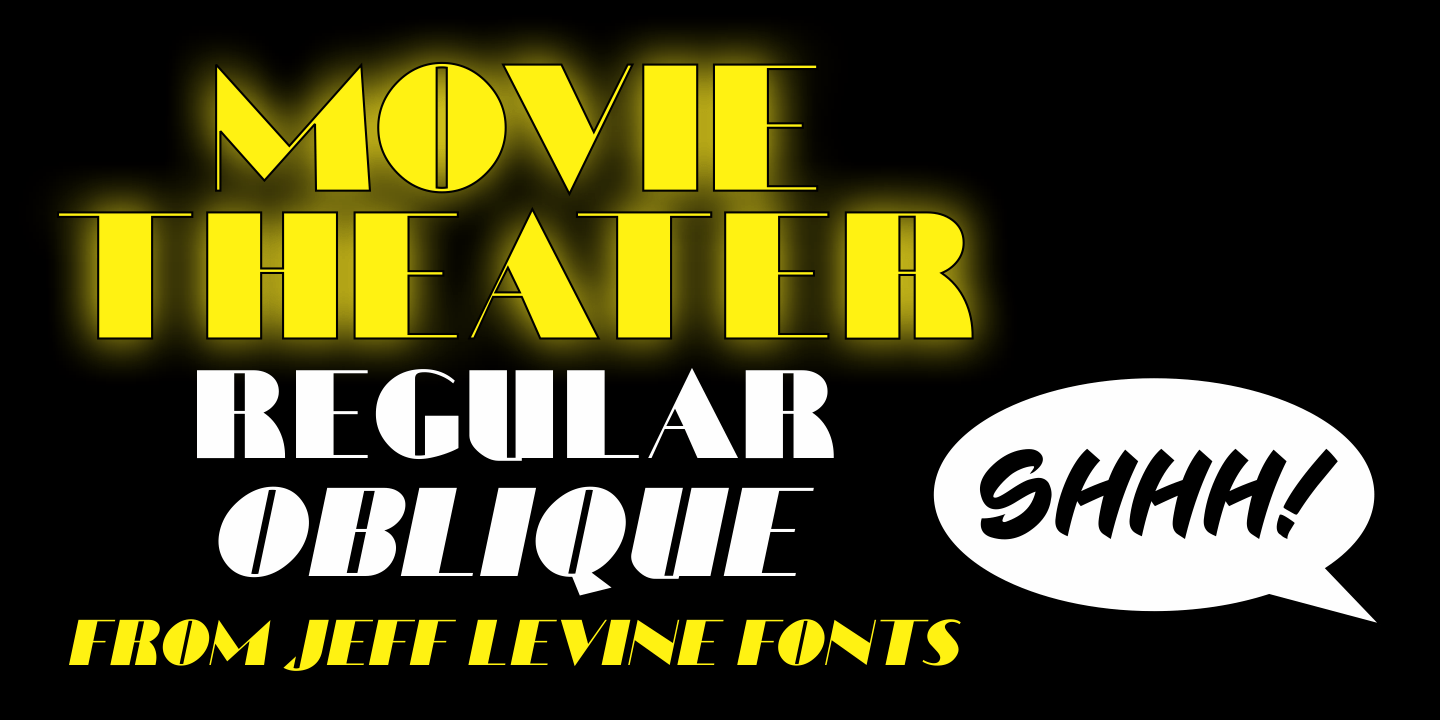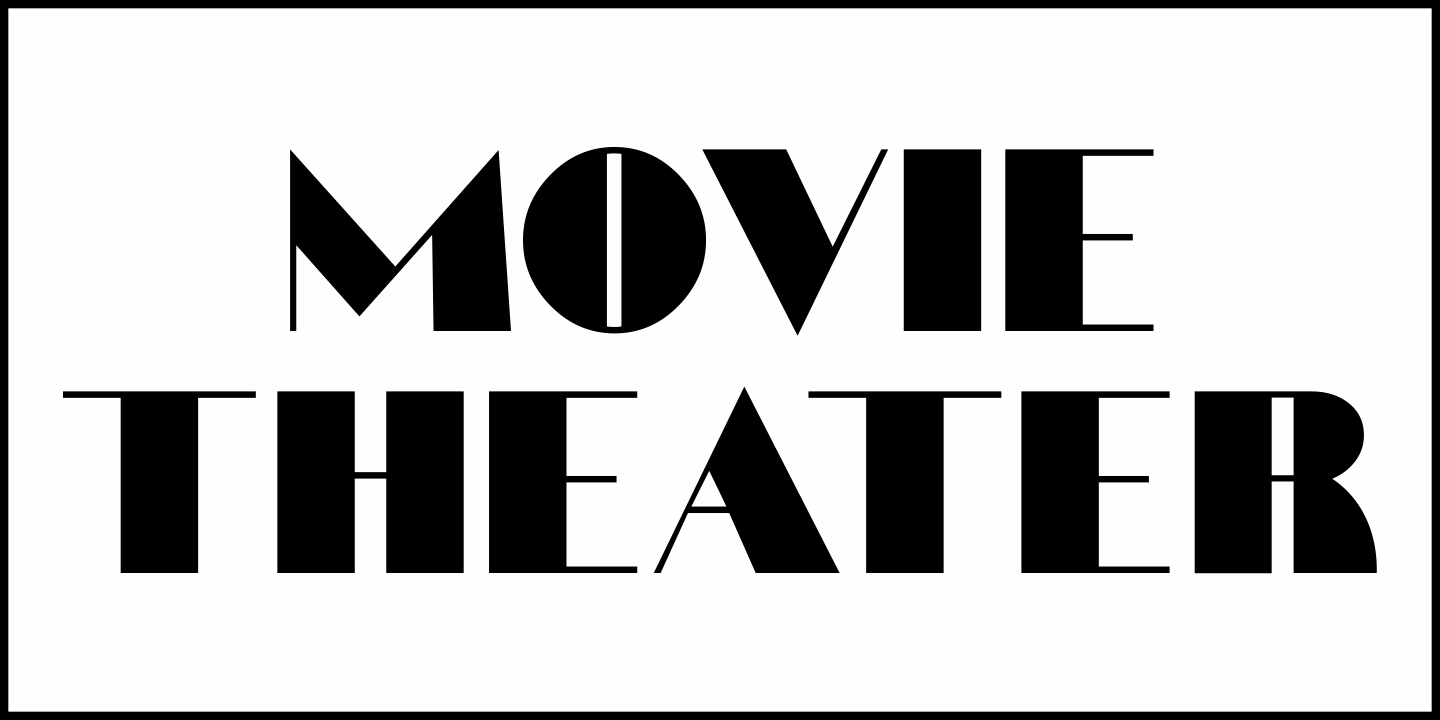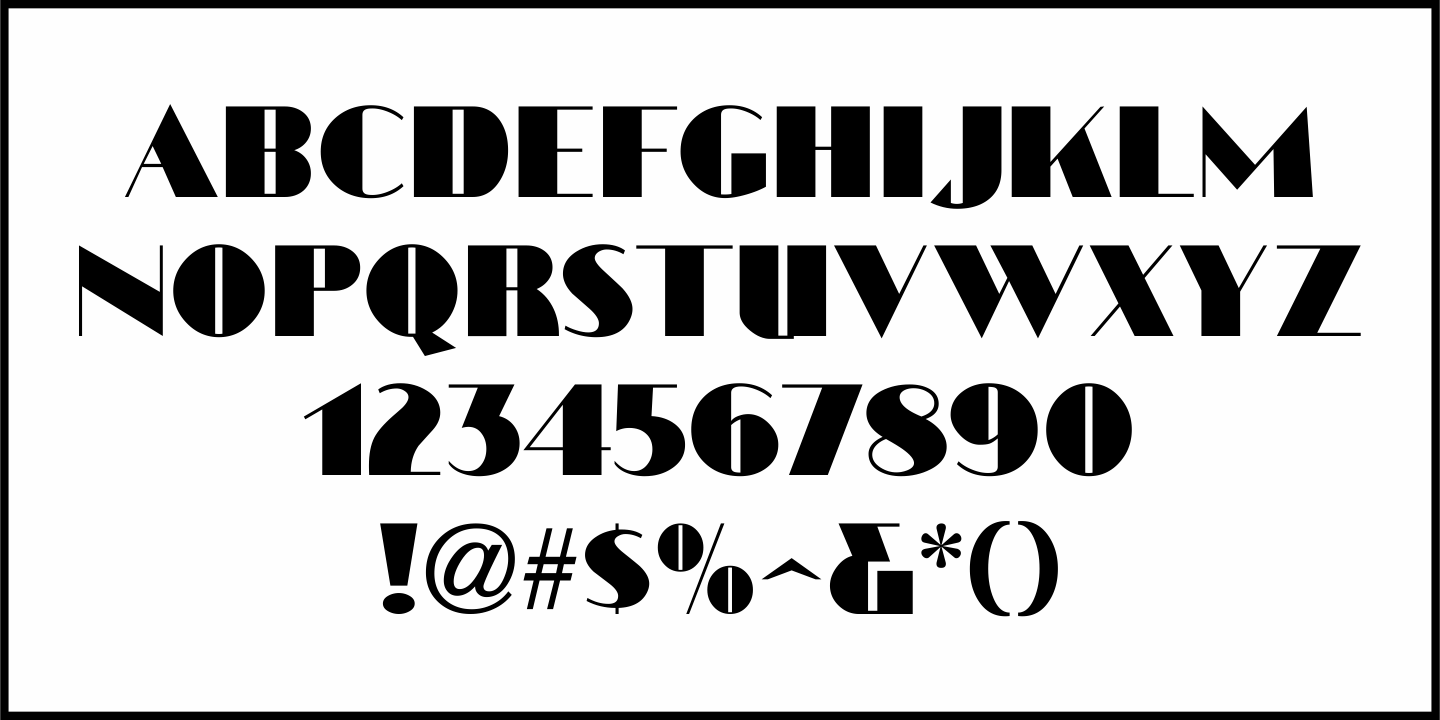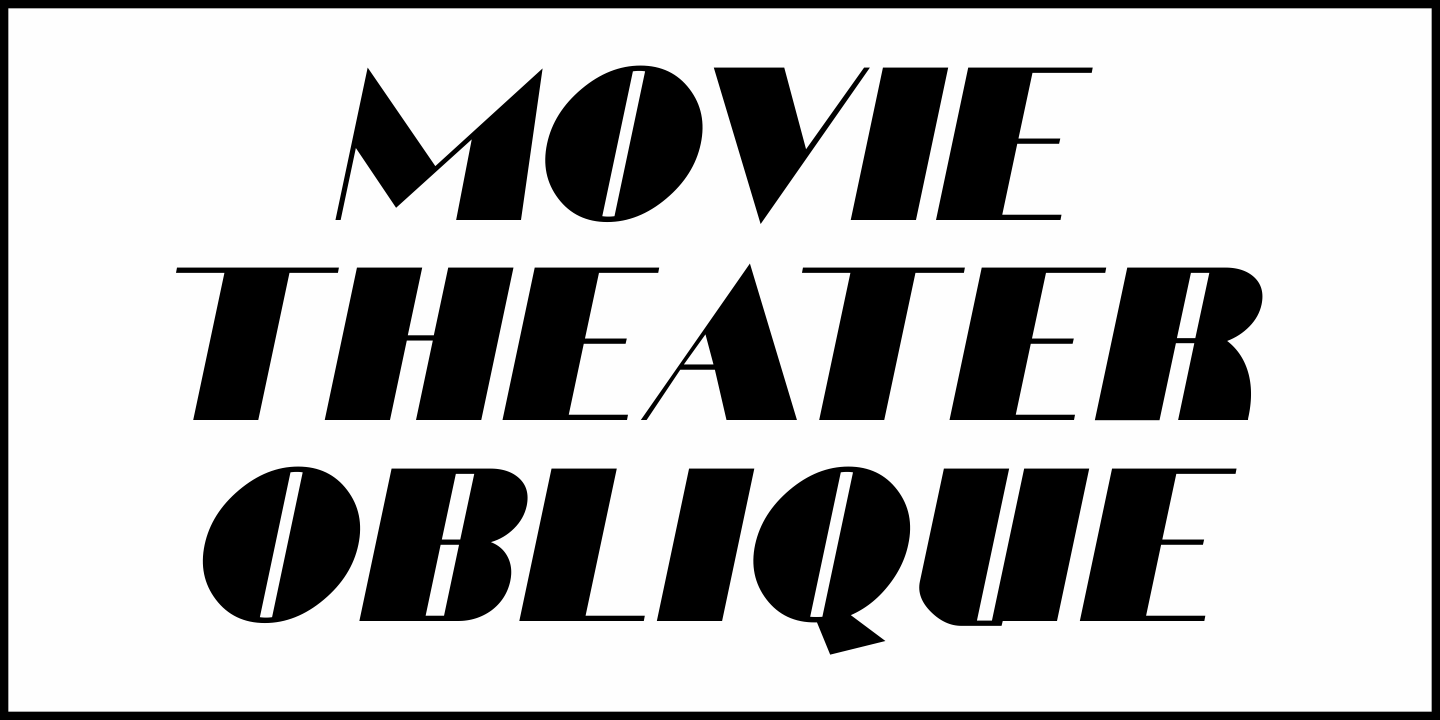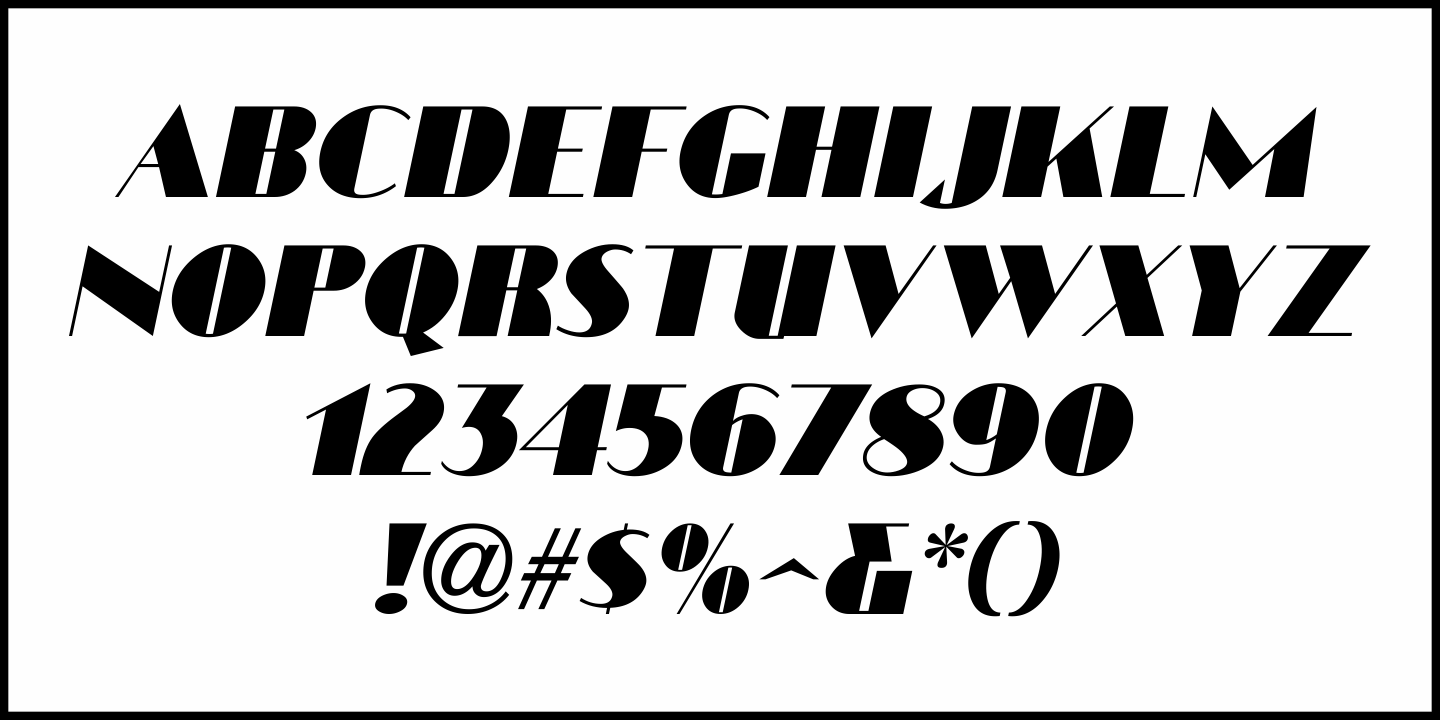
Movie Theater
In the October, 1933 issue of Motion Picture Herald, various article titles were set in one of the most prevalent choices of typography during the Art Deco era: thick-and-thin lettering.
Many variations of what was first popularized by Morris Fuller Benton's 'Broadway' [designed in 1927 for American Type Founders] have been rendered in both metal type and hand lettering.
Movie Theater JNL is yet another interpretation of this classic style, and is available in both regular and oblique versions.